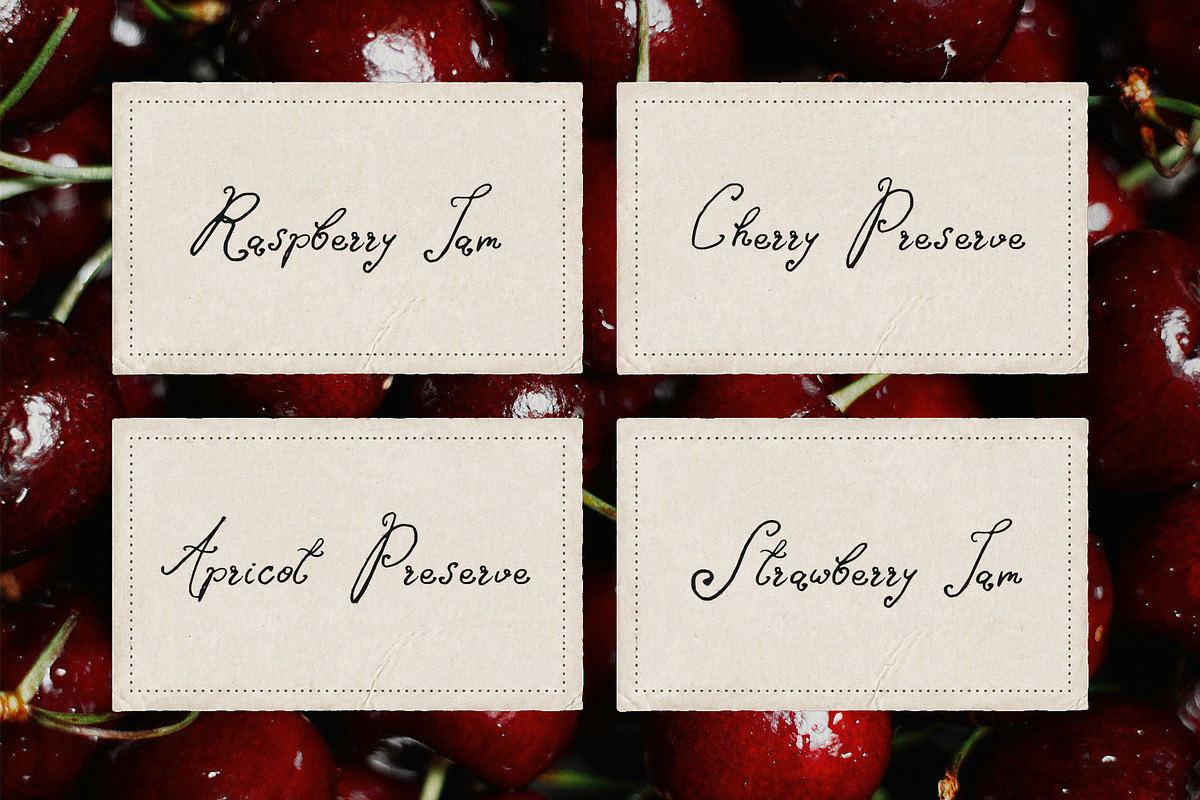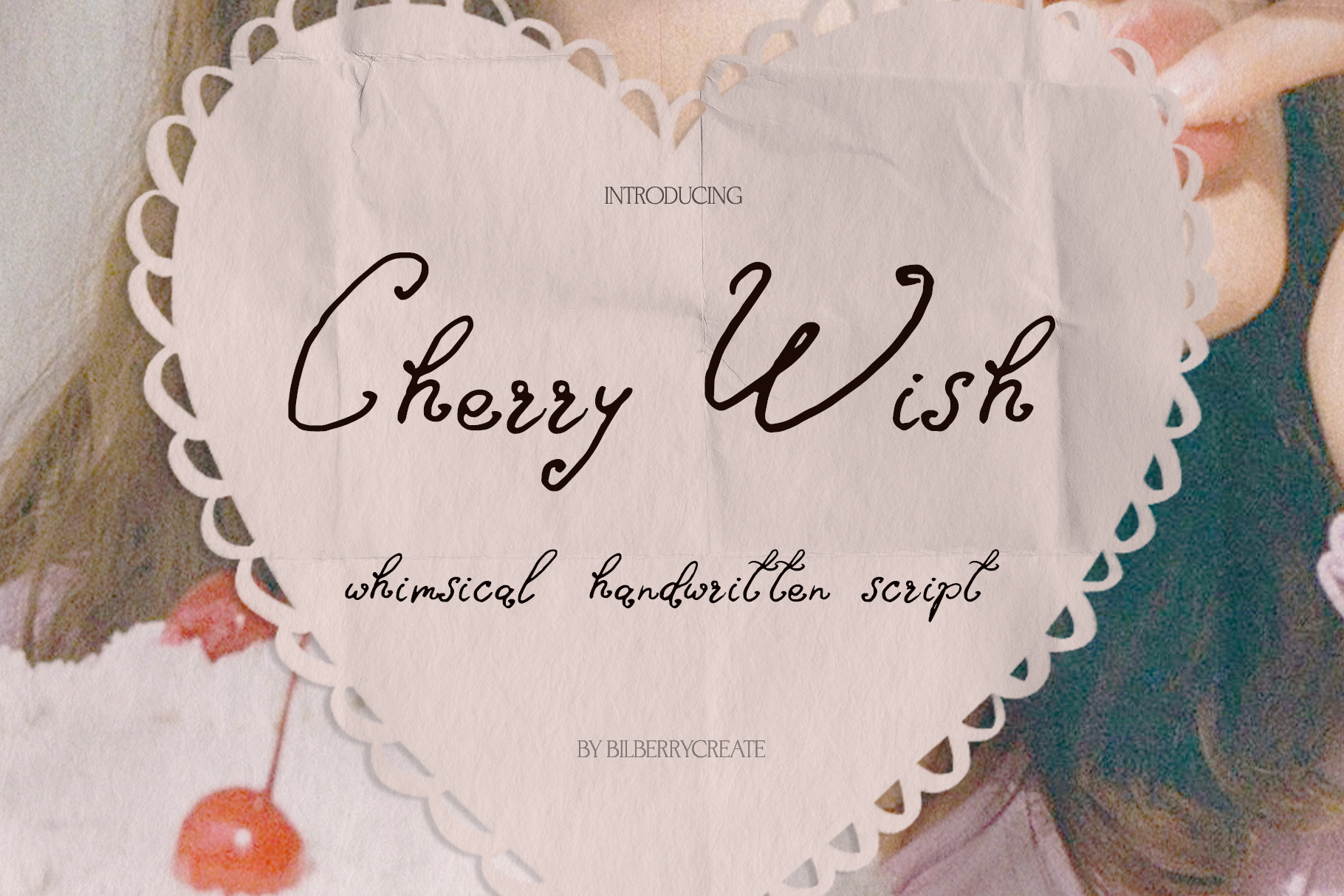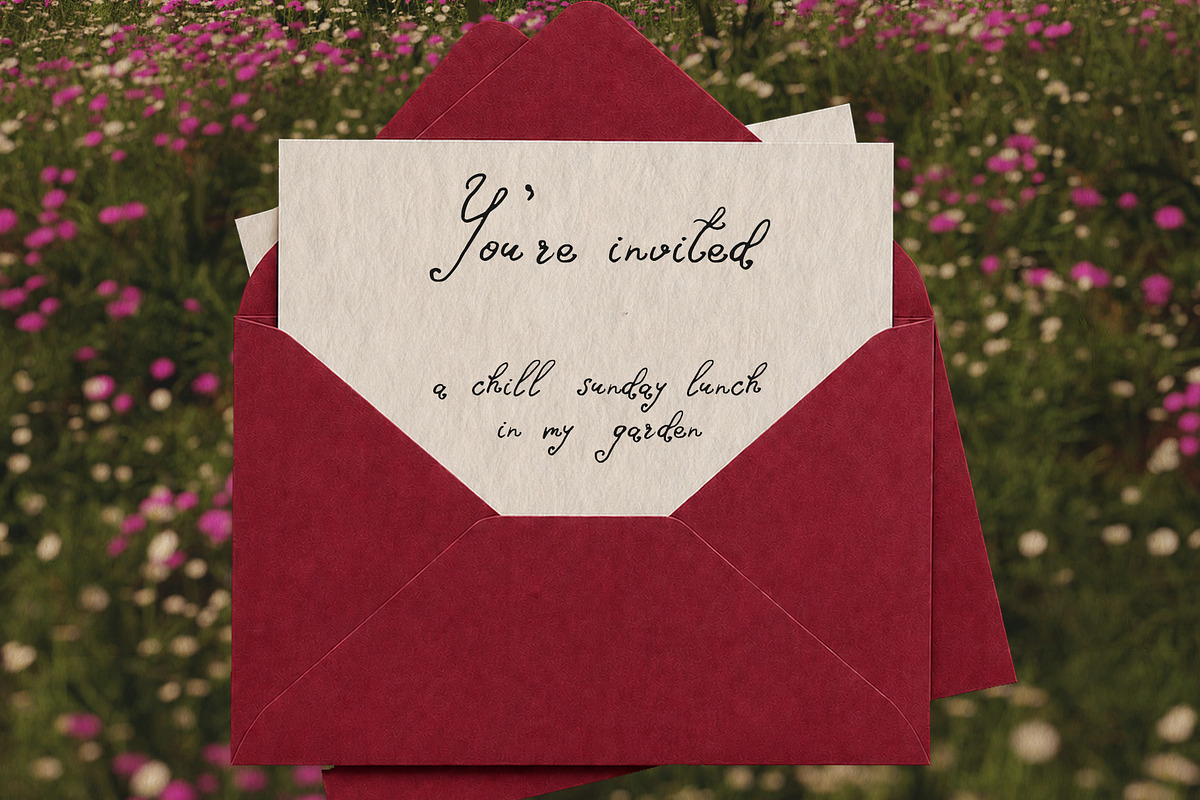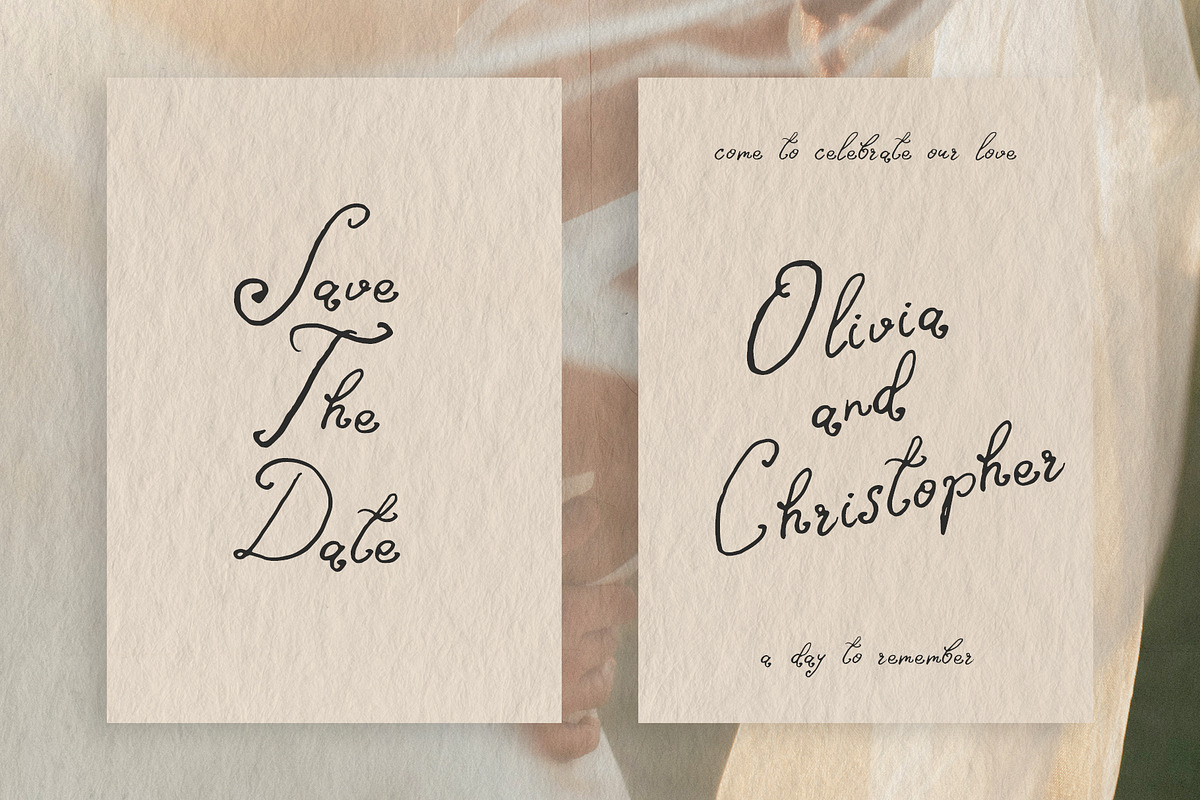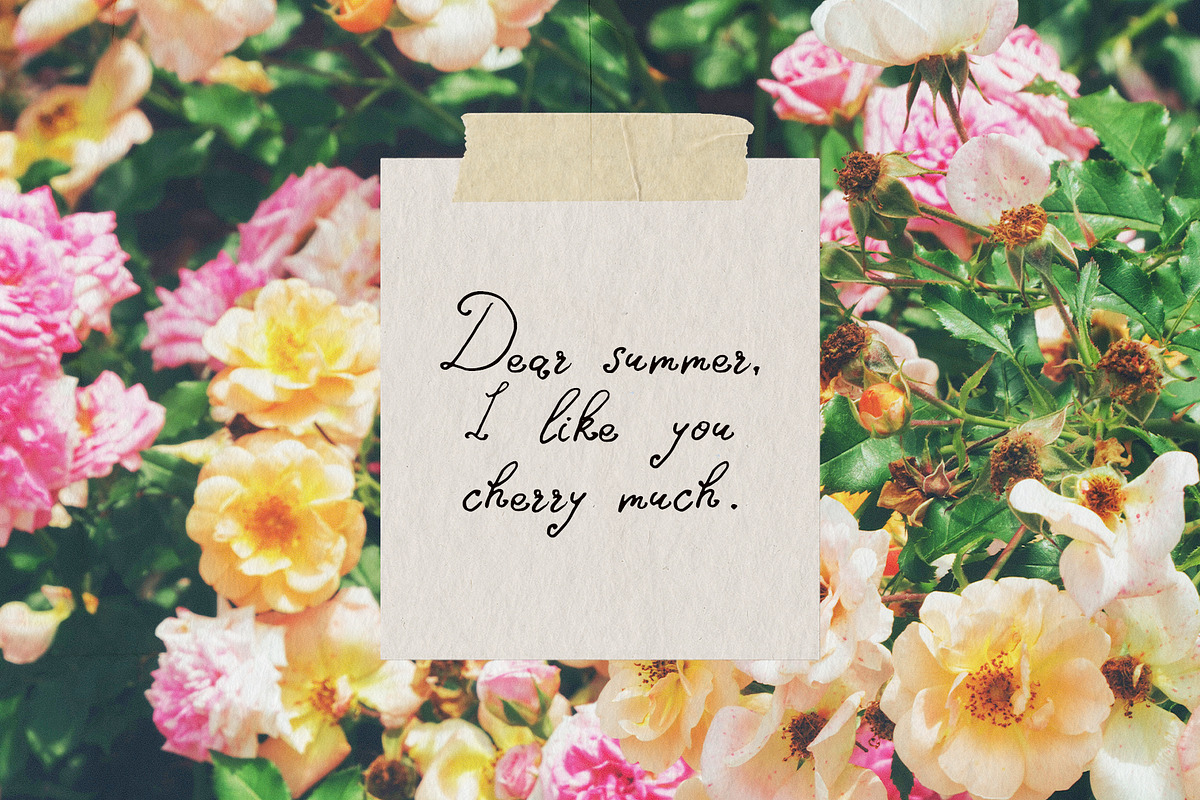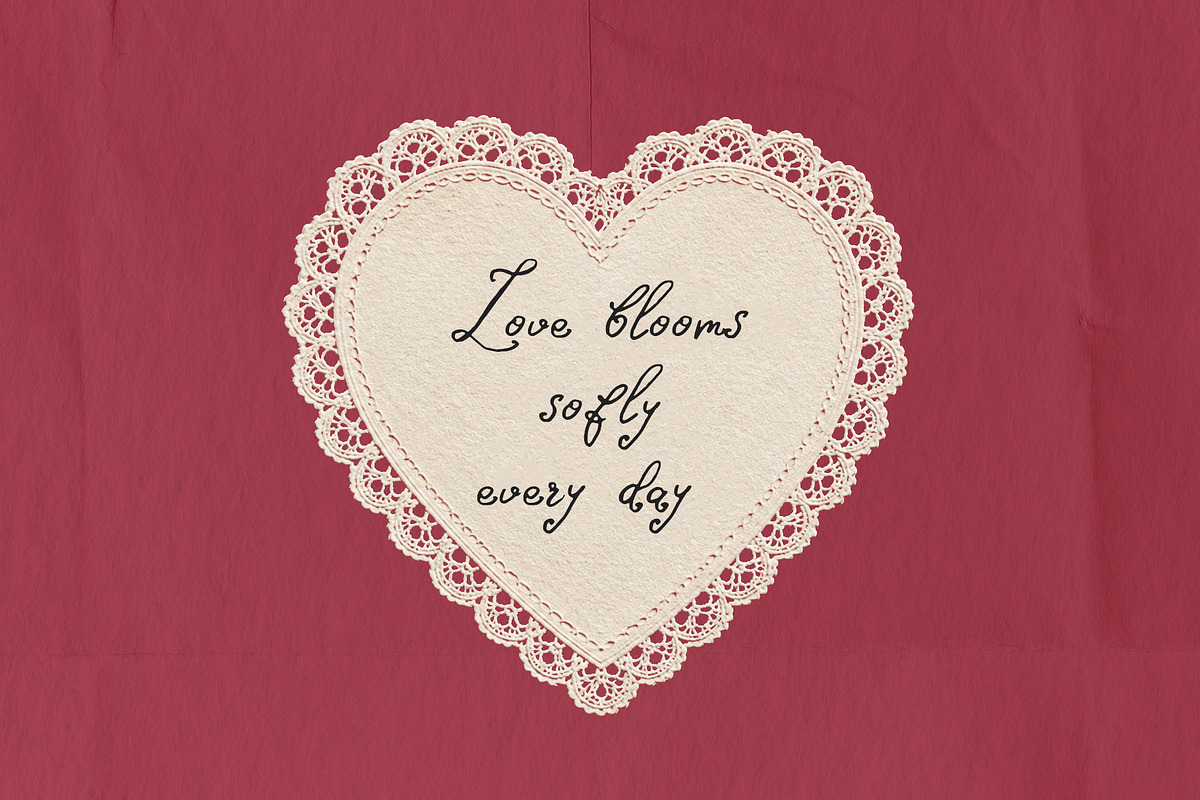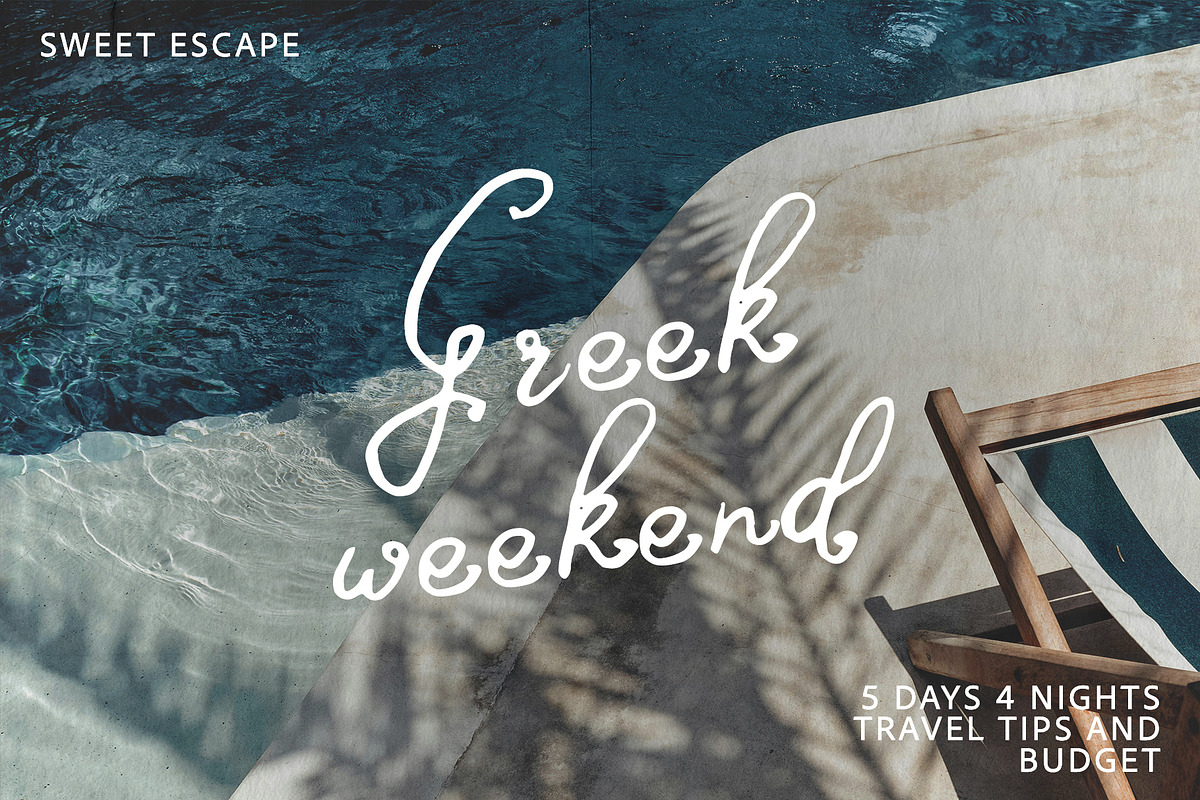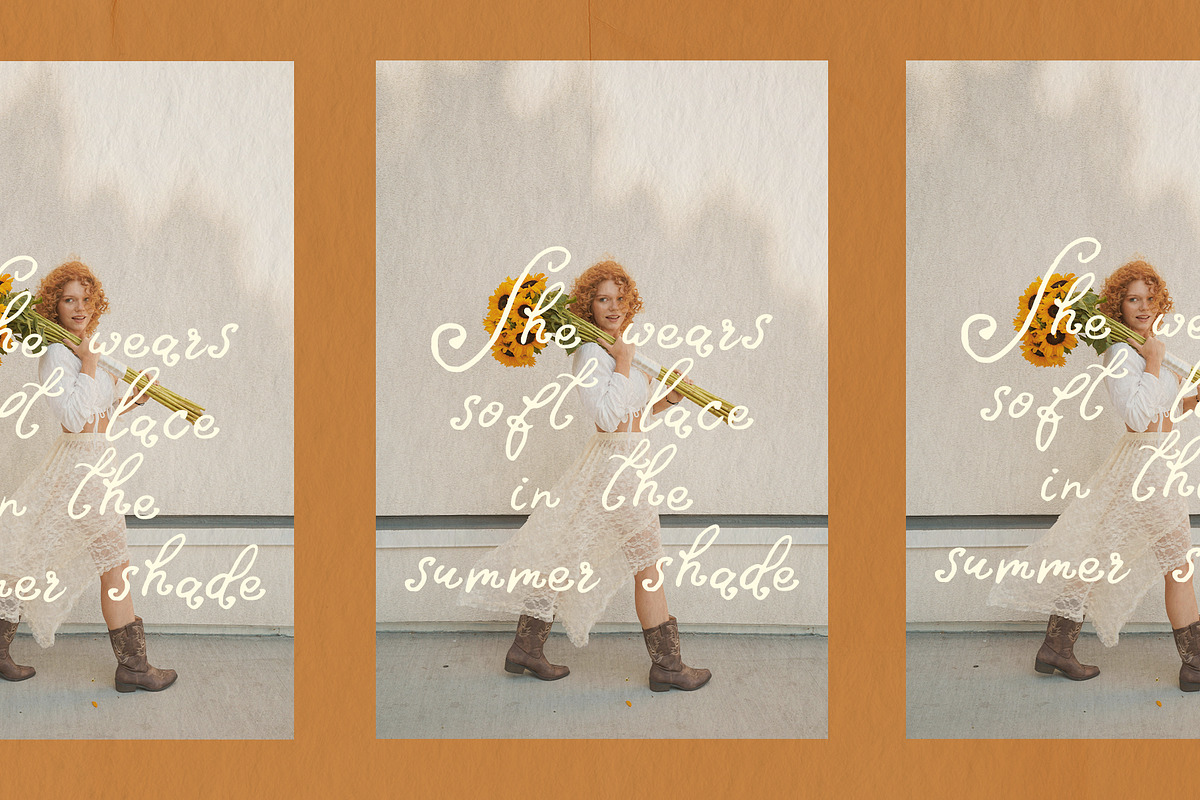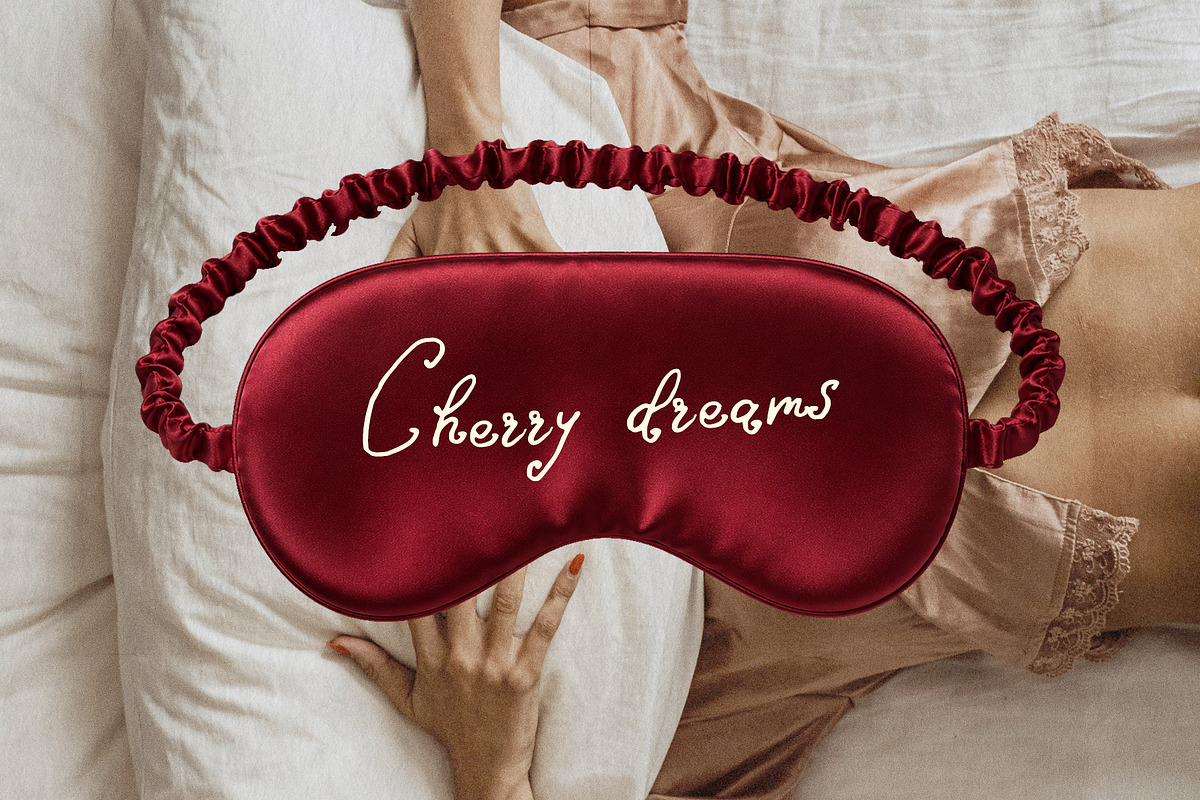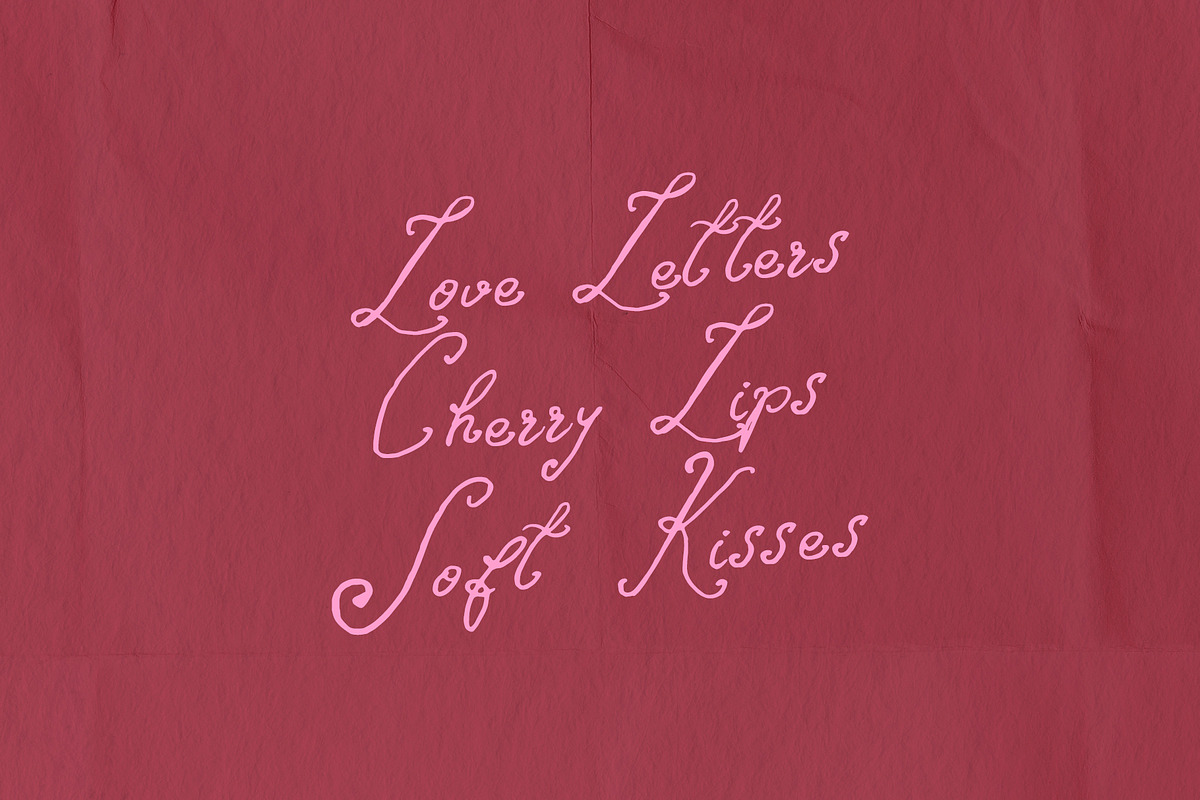
Cherry Wish Romantic Font
Meet Cherry Wish - a whimsical handwritten script font with a soft romantic character and a handmade vintage feel.
Its delicate letterforms, playful curves, and charming imperfections make it perfect for love notes, wedding stationery, packaging, candle labels, jam labels, greeting cards, feminine branding, social media graphics, and anything that needs a gentle handwritten touch.
Cherry Wish comes with multilingual support, so you can use it for beautiful designs in different languages while keeping the same natural handwritten charm.
This font was created for designs that feel tender, intimate, and beautifully imperfect - like a little note written by hand and kept forever.